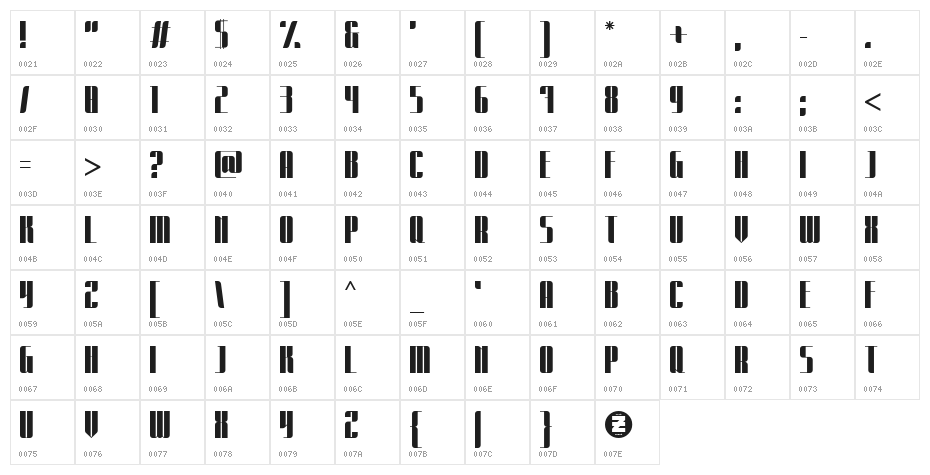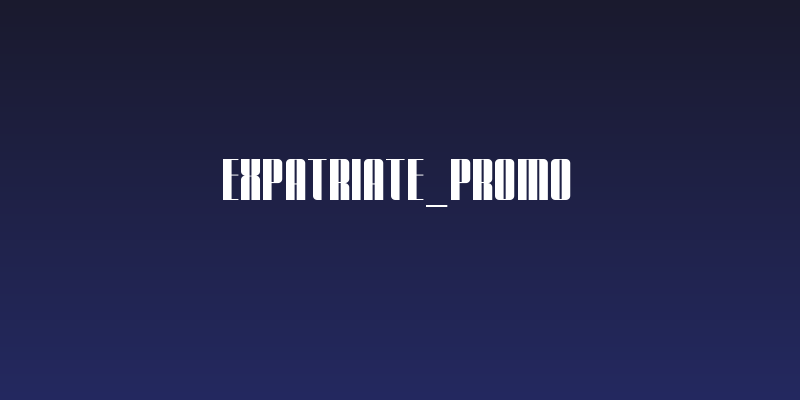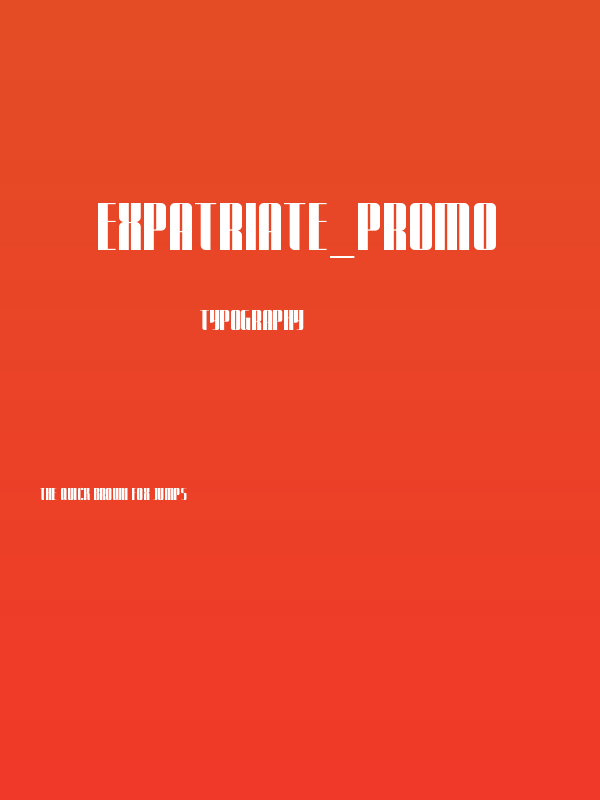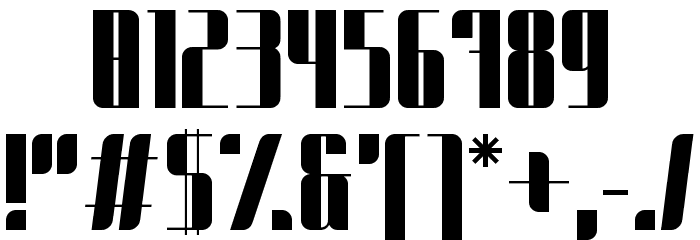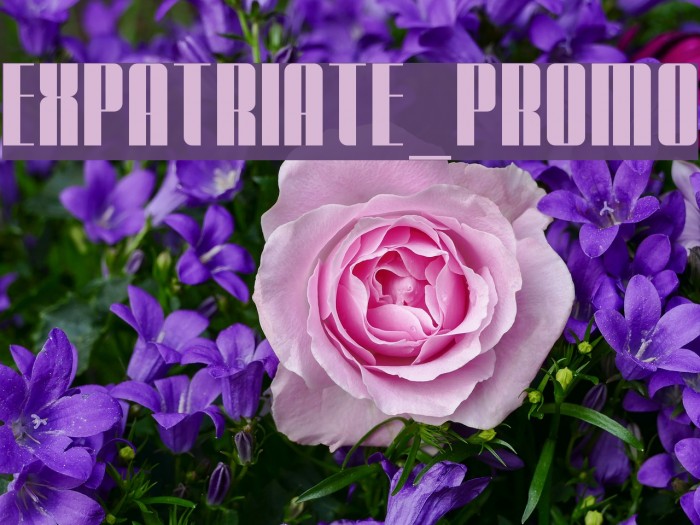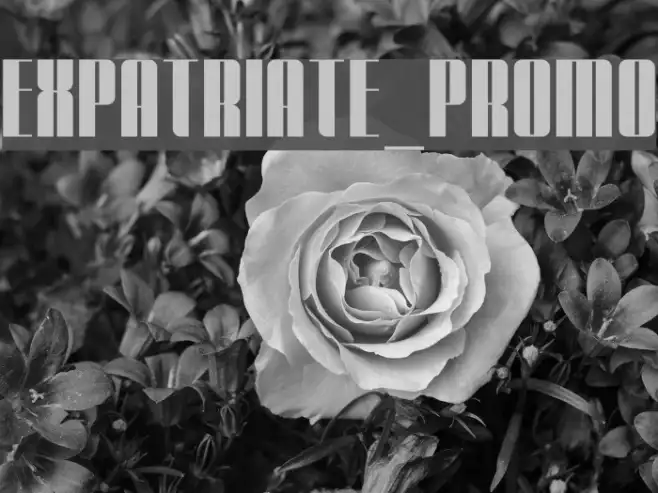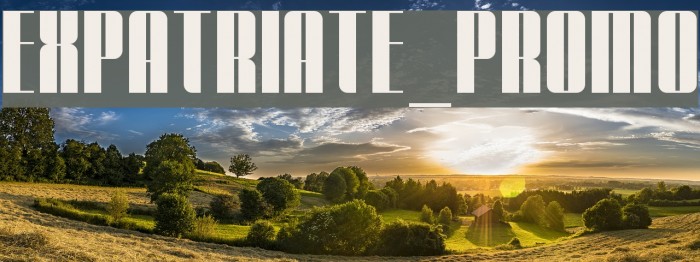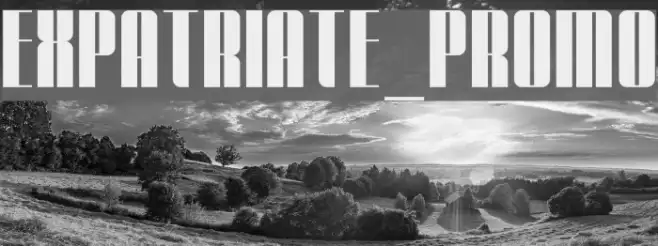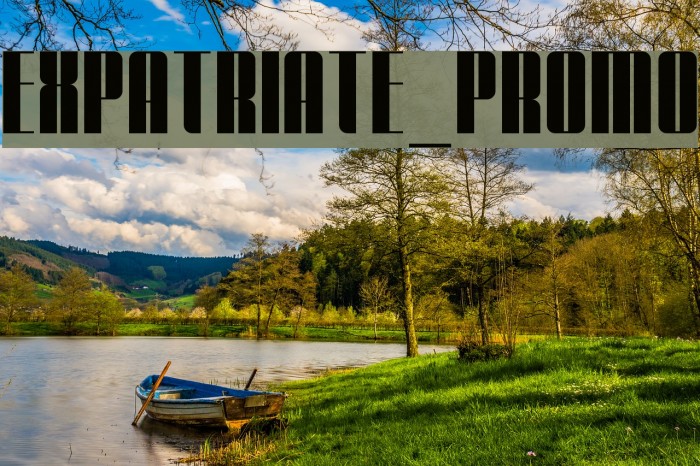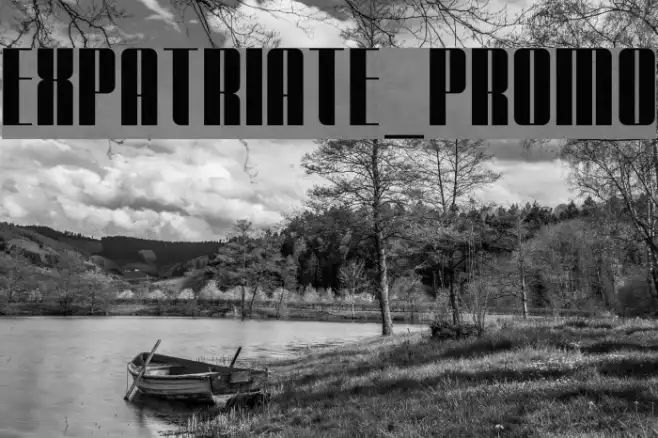
Expatriate_Promo Font
Expatriate_Promo Description
This font exhibits a bold and striking design with a strong geometric influence. The characters are tall and narrow, featuring sharp, angular edges that create a sense of modernity and sophistication. The uppercase letters are particularly prominent, with a uniform height that enhances their imposing presence. The lowercase letters maintain the same angular style, ensuring consistency across the typeface. The numerals are equally bold, matching the overall aesthetic of the alphabet. Special characters are designed with the same attention to detail, ensuring they integrate seamlessly with the rest of the font. This typeface is ideal for making a bold statement in any design project.
| Proposed Projects | Ideal for branding, poster design, and headlines where a strong visual impact is desired. |